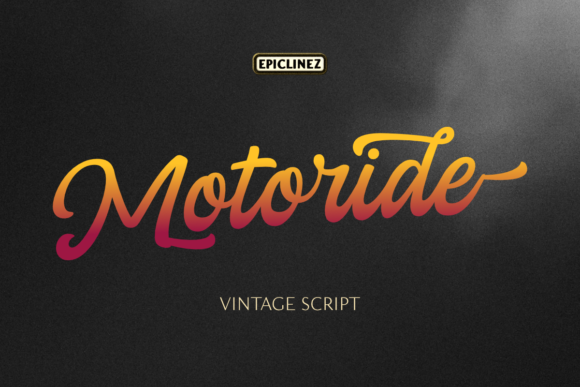
Prepare yourself to be mesmerized by Motoride Script, the epitome of elegance and charm in the world of typography. Created by the ingenious minds at Epiclinez, this captivating font family oozes authenticity and beauty, exuding a timeless appeal that will elevate your designs to breathtaking heights. Its enchanting handwritten style effortlessly captures the essence of vintage charm, seamlessly blending the past and present to create a captivating visual experience.
With its graceful strokes and elegant curves, Motoride Script is a true masterpiece, meticulously crafted to evoke a sense of nostalgia and romance. Its versatility knows no bounds, making it the perfect choice for an array of design projects, including:
- **Logotypes:** Elevate your brand identity with Motoride Script's distinctive personality. Its captivating characters will leave a lasting impression on your audience, ensuring your brand stands out from the crowd.
- **Apparel:** Create a fashion statement like no other with Motoride Script. Its vintage charm will add a touch of sophistication to your clothing designs, making each piece a timeless treasure.
- **Branding:** Forge an unforgettable brand image with Motoride Script. Its unique style will differentiate your brand from the competition, creating a strong and lasting connection with your customers.
- **Packaging:** Transform your products into exquisite works of art with Motoride Script. Its timeless elegance will enhance the perceived value of your products, making them irresistible to discerning consumers.
- **Advertising:** Capture the attention of your target audience with Motoride Script's captivating charm. Its visually striking characters will make your advertisements impossible to ignore, ensuring your message is seen and remembered.
- **Instagram Quotes:** Share your wisdom and inspiration with the world in a visually stunning way with Motoride Script. Its enchanting style will elevate your quotes, making them stand out in the crowded digital landscape and resonating deeply with your followers.
With Motoride Script, the possibilities are endless. Its versatility and timeless appeal make it the perfect choice for designers seeking to create truly captivating and memorable designs. Unleash your creativity and experience the transformative power of Motoride Script today.